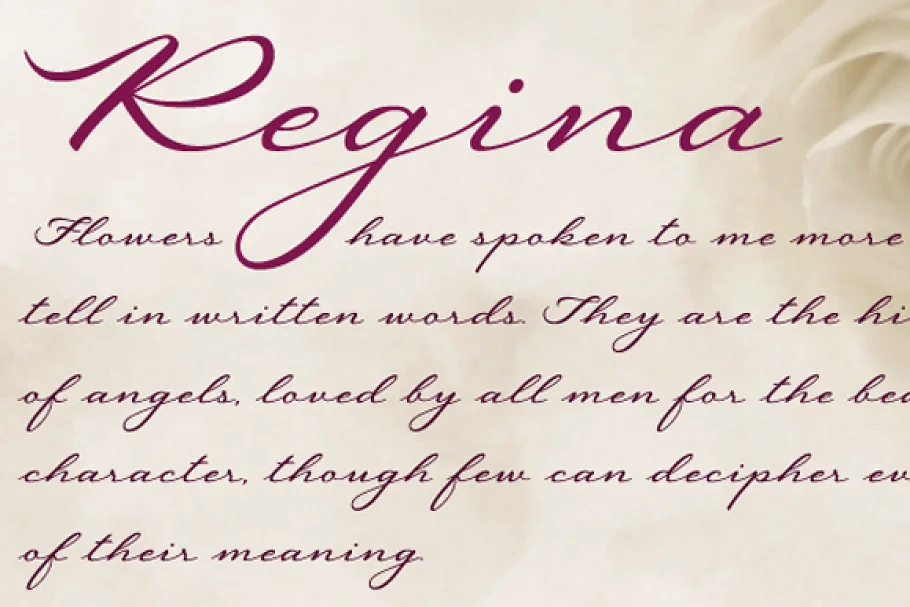
Regina Font
db-ku.com - Script & Handwritten -- A broad, welcoming, and highly legible script, Regina’s languorous letterforms laze across the page. Suitable for use in display or text settings on letters, invitations, and menus, Regina reminds us of a time when people took the time and care to share beautifully penned thoughts by hand.